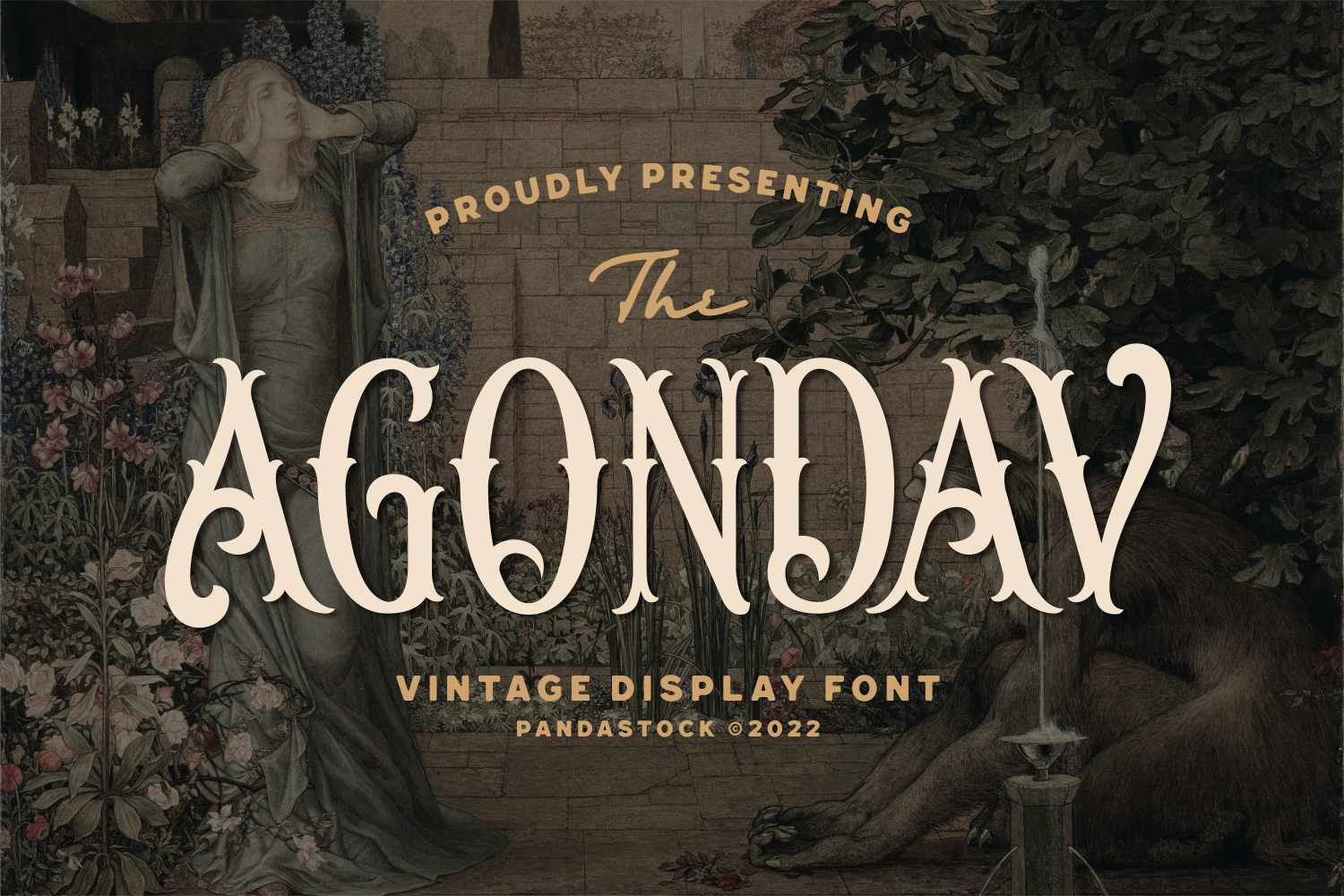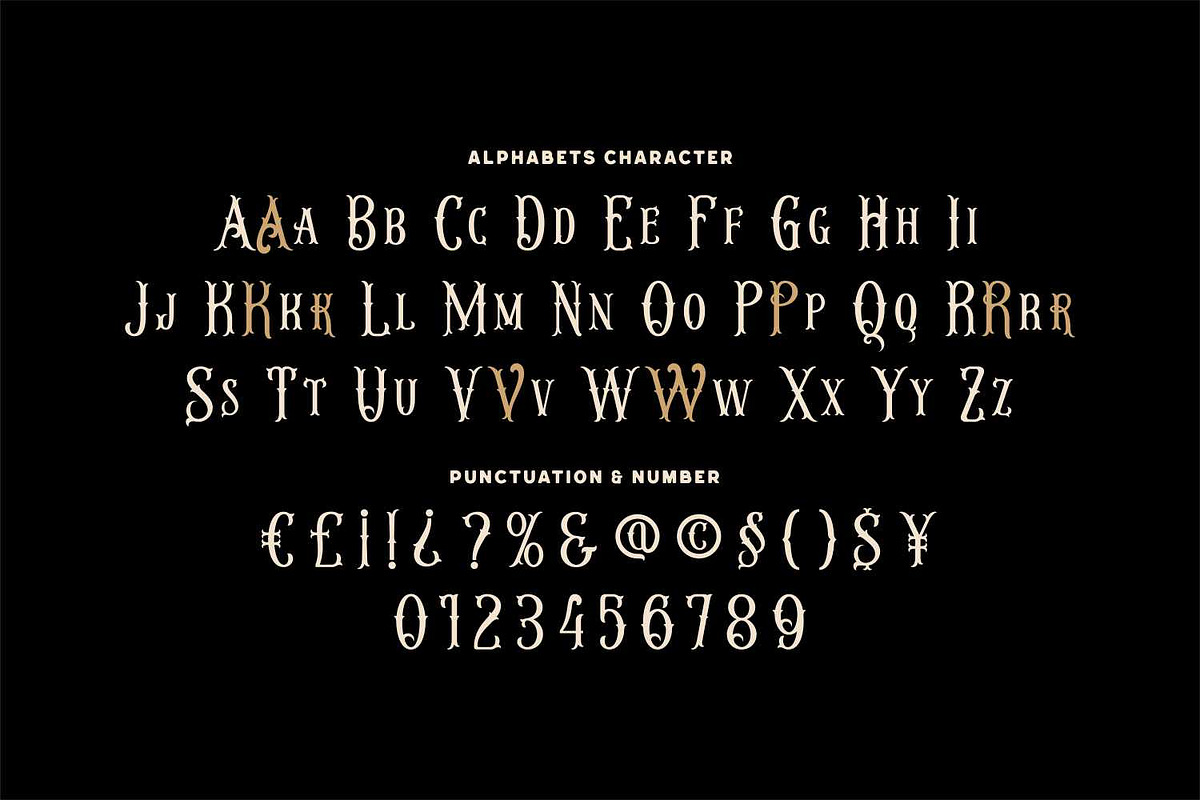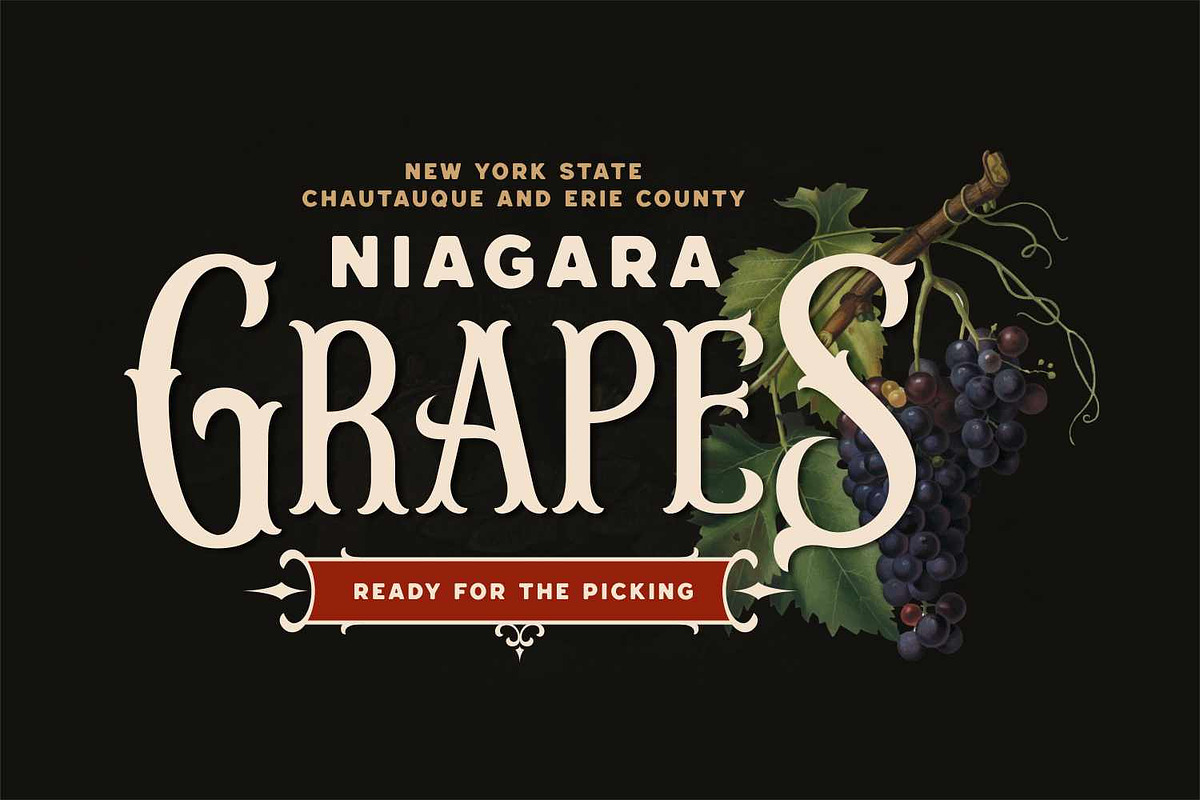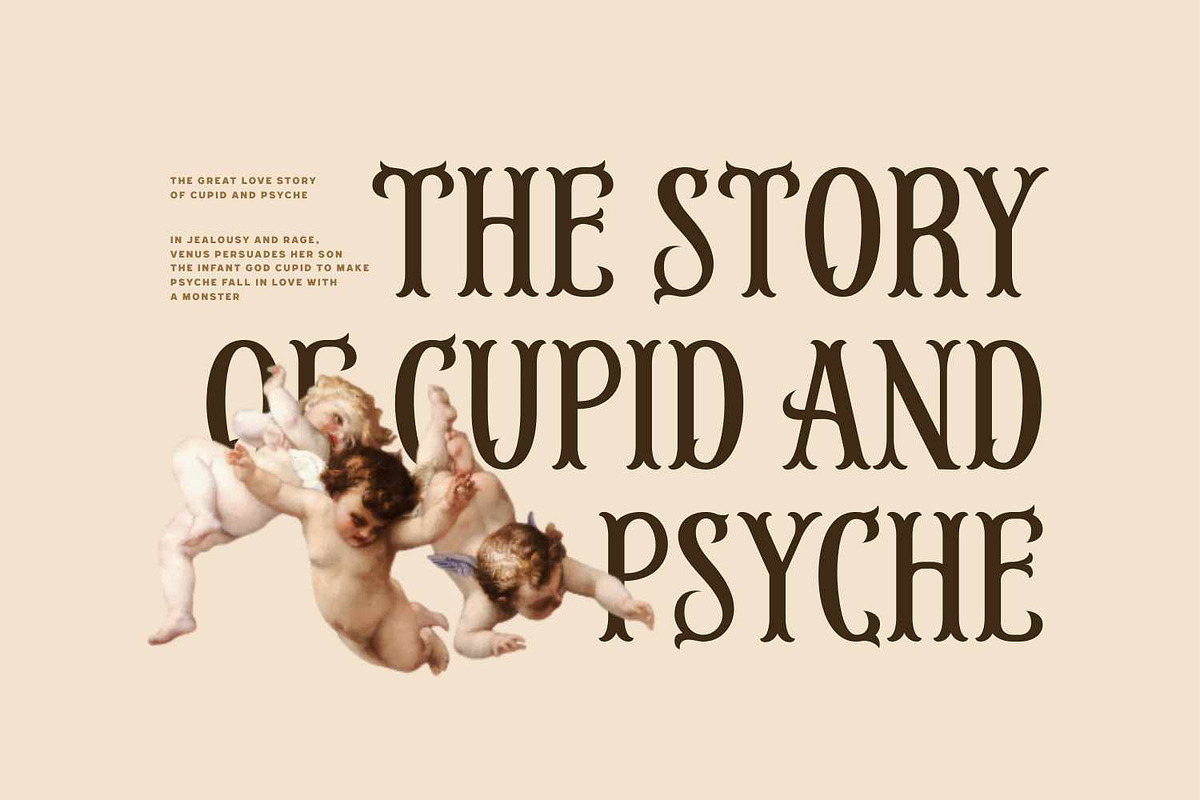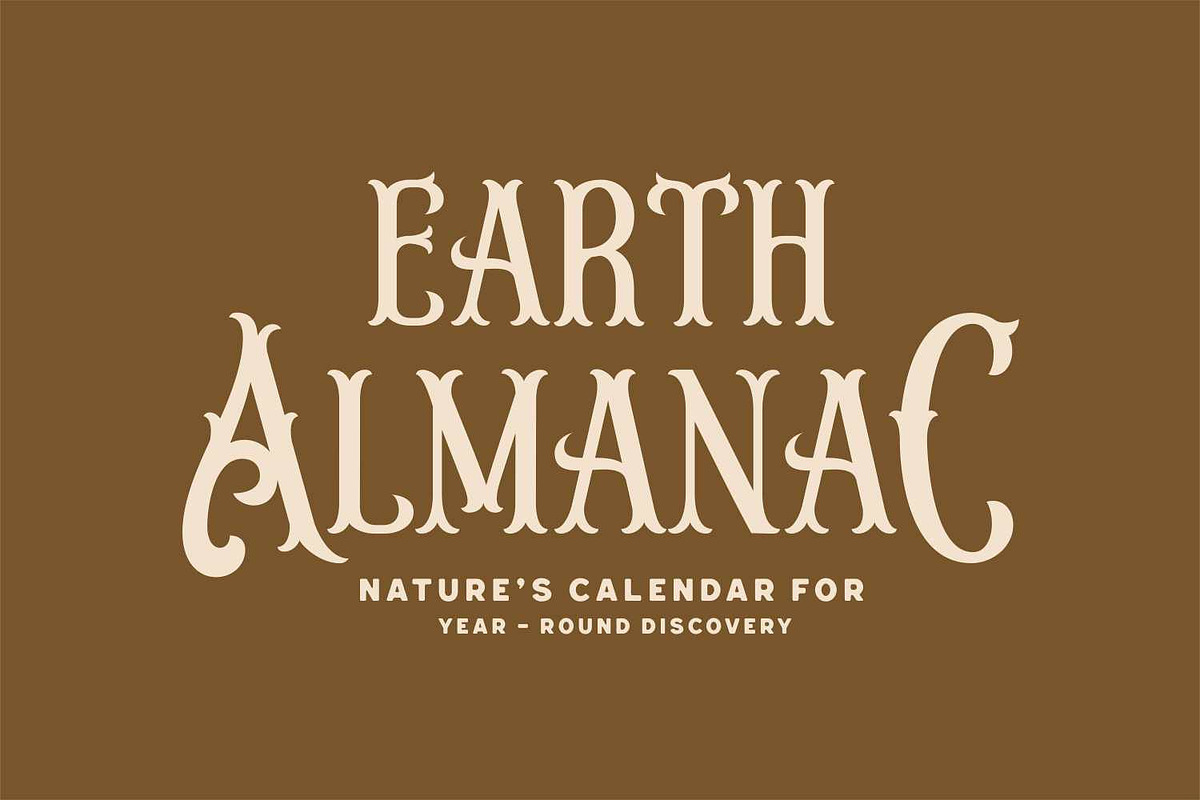
Agondav - Victorian Vintage Font
Agondav is a victorian vintage font shaped for bold titles and ornamental branding. The letterforms blend 19th century Tuscan showcards with early Art Nouveau book jackets: tall vertical stress, strong stroke contrast, and sculpted, flared serifs that curl into teardrop terminals. Caps are statuesque and theatrical, the lowercase mirrors the same carved elegance for multi word headlines without losing impact.
Distinctive details include scooped shoulders, daggered entry and exit strokes, and rounded counters that keep the texture warm rather than harsh. Set large and it delivers instant storybook atmosphere for posters, book covers, apothecary labels, editorial spreads, boutique logos, packaging, and event titles.
Uppercase and Lowecase Characters.
Numerals and Punctuations.
Alternates and Ligatures.
Multilingual Support.